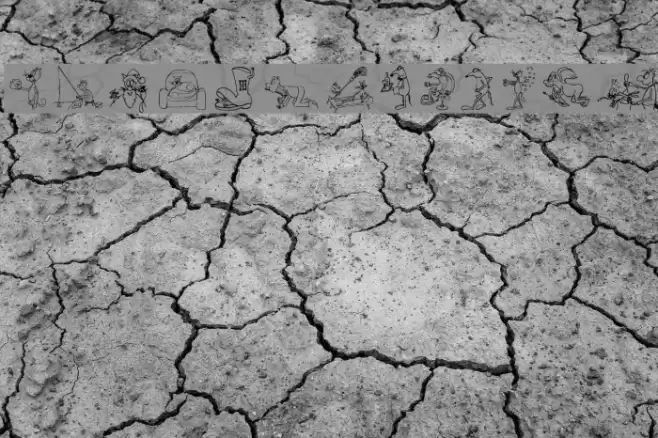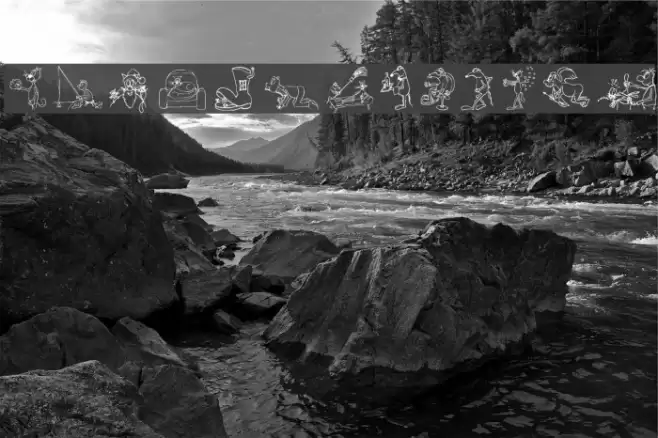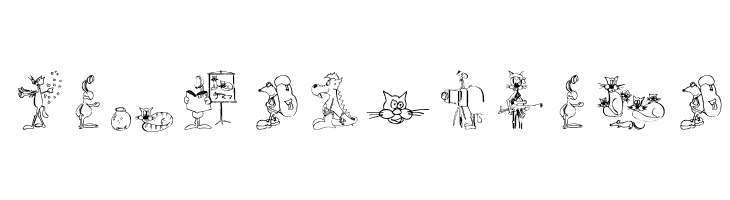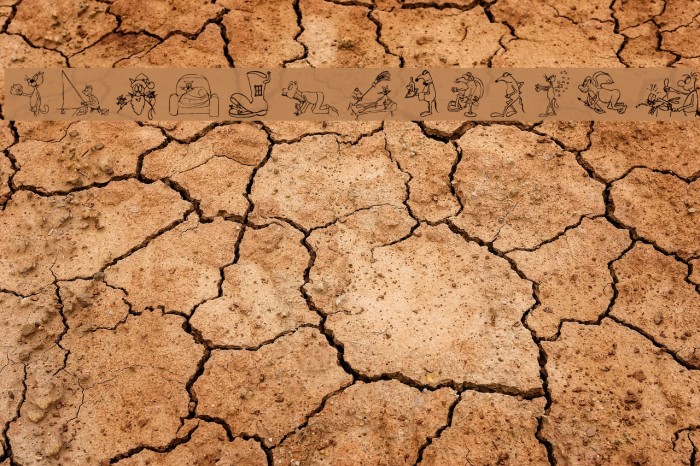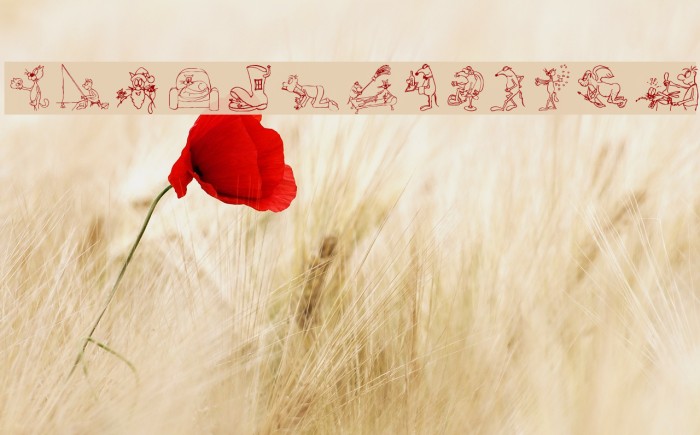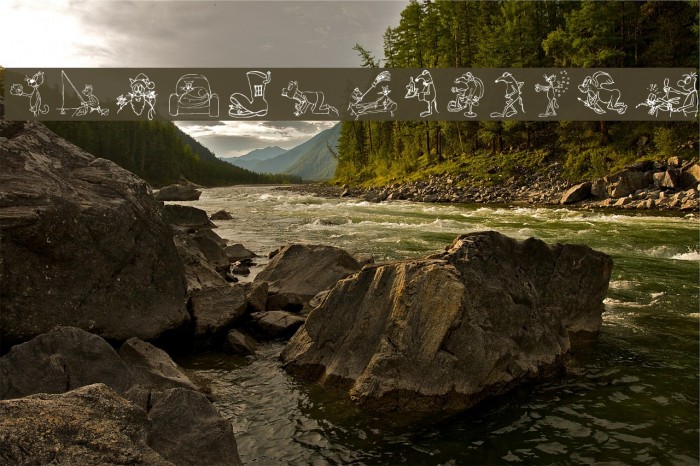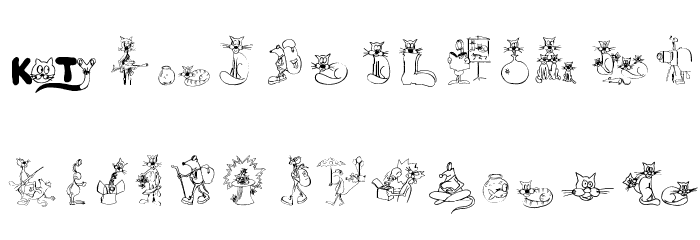
KocieSymbole Font
KocieSymbole Description
This is a playful and whimsical decorative font featuring a series of cat-themed illustrations. Each character is represented by a unique drawing of a cat in various humorous and imaginative poses, often interacting with objects or other animals. The style is cartoonish and light-hearted, with a hand-drawn quality that adds to its charm. The font is not designed for traditional text but rather as a collection of pictorial symbols, making it ideal for creative projects that require a fun and quirky touch.
A whimsical decorative font with cat-themed illustrations from Dingbats fonts.
- Proposed Projects: Ideal for children's books, greeting cards, playful posters, and any project that benefits from a humorous and light-hearted theme.
- Use Case: Logos, Decorative elements, Illustrations